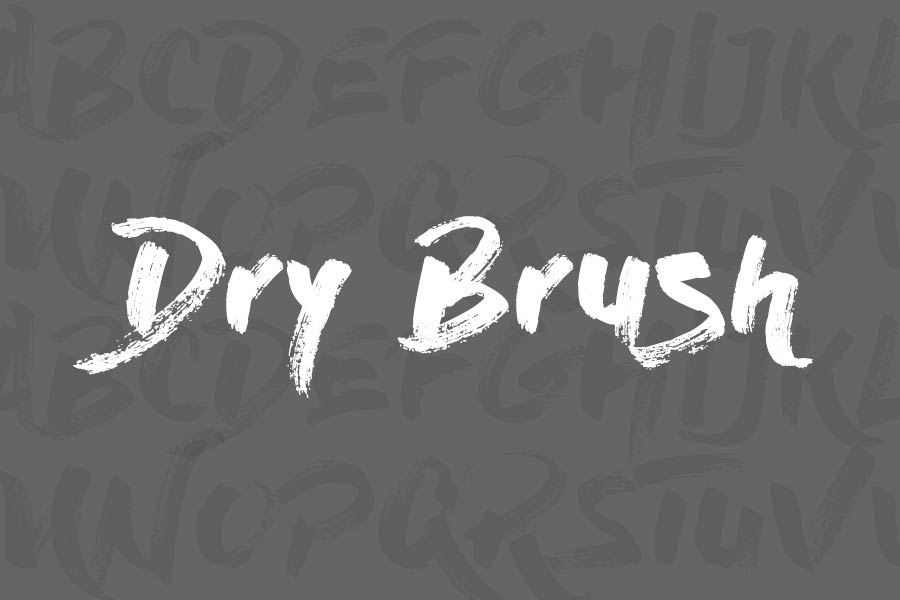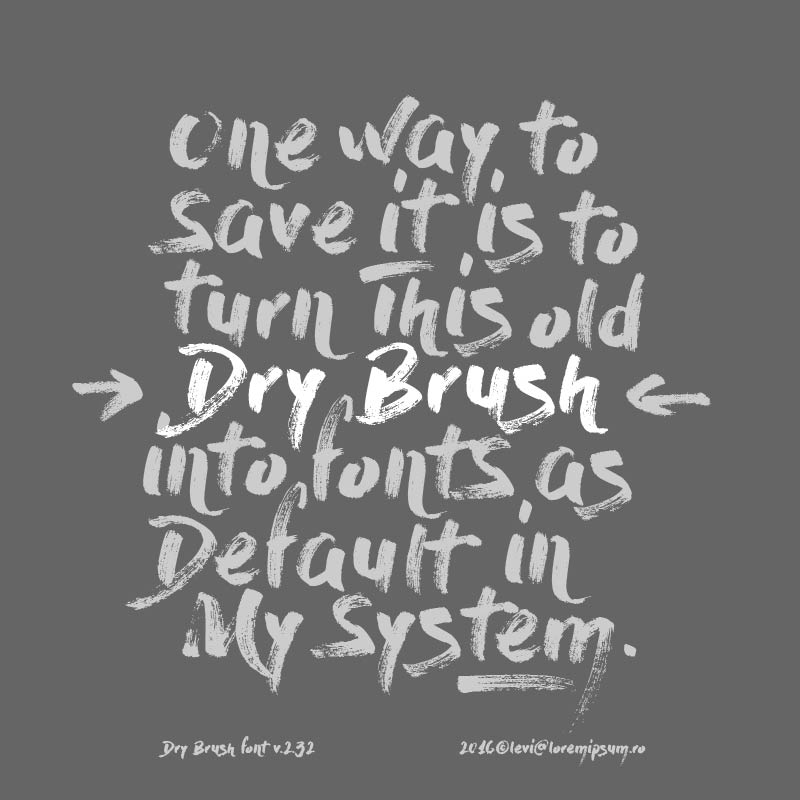
Dry Brush is a bold, expressive yet easy-to-read free brush font for download. According to the author, Levi Szekeres, the focus on this font was a realistic reproduction of brush strokes, to create a compact and bold look that can be used both in headlines and as well as in short letter combinations.